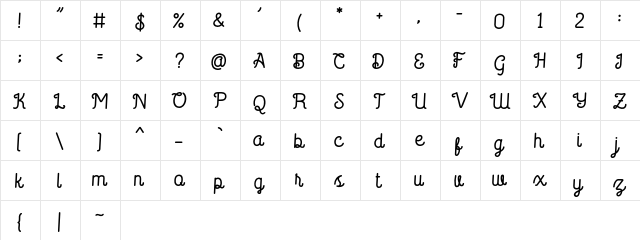
Saffa Script Script Monoline Font Preview
Saffa Script Script Monoline
Saffa Script Script Monoline Font Details
| Style | Script Monoline |
| Foundry | Viaction Type.Co |
| Designer | Lukman Hidayat "Viaction Type.Co" |
Design Context for Saffa Script Typeface
Saffa Script flows with the natural rhythm of handwritten lettering, making it ideal for designs that call for warmth and personal expression.
Font Pairing: Combine Saffa Script with a simple geometric sans for maximum contrast — the tension between flowing curves and clean structure is a classic typographic pairing.